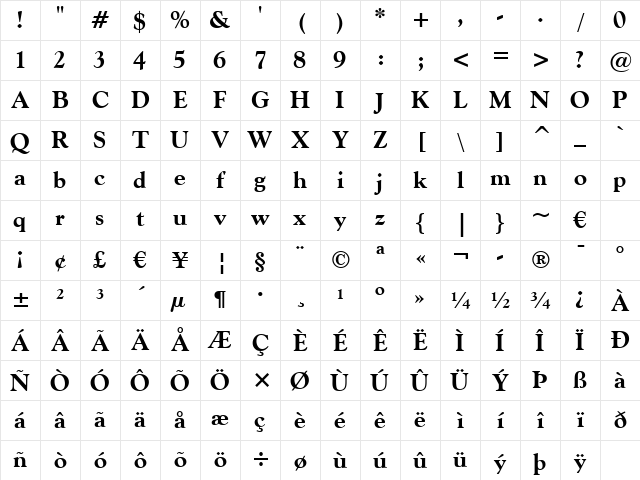
GoudyOlSt XBd BT Extra Bold
Style: Extra Bold
GoudyOlSt XBd BT Family
GoudyOlSt XBd BT Extra Bold
Design Context for GoudyOlSt XBd BT
GoudyOlSt XBd BT is a composed and adaptable typeface that performs quietly and consistently across a wide range of design contexts. Its bold stroke weight gives it real presence on the page.